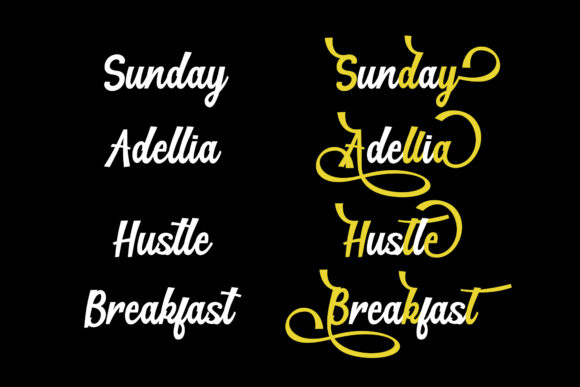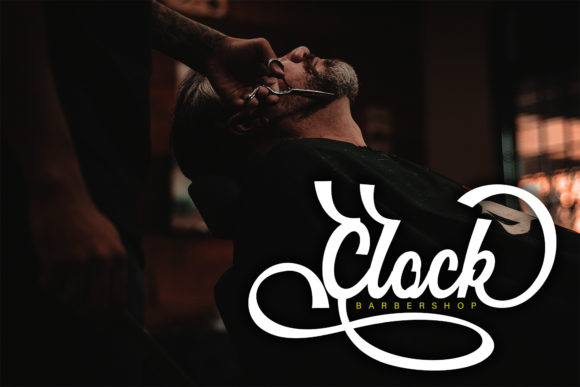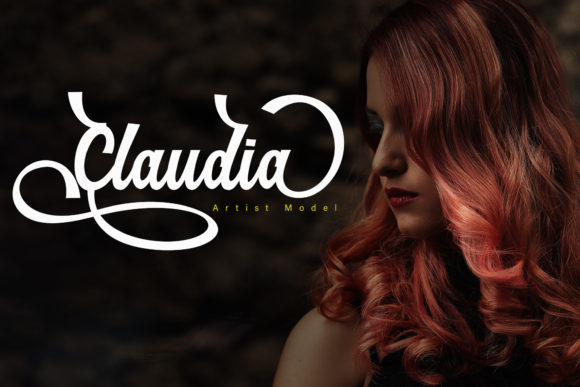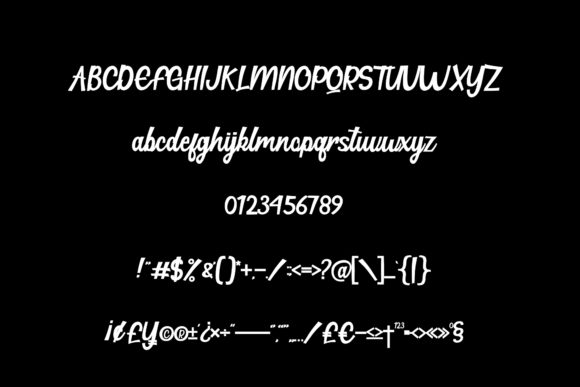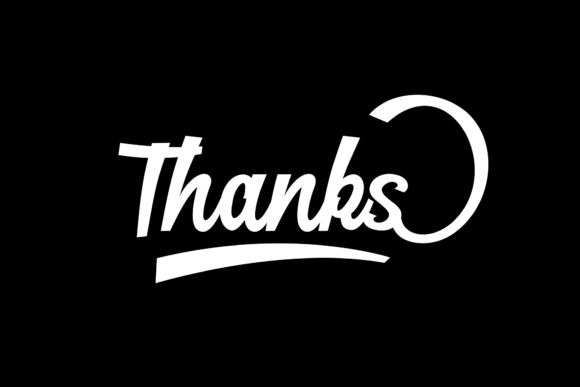
HomeScript FontsHillton Modern Script Font Script Fonts Hillton Modern Script Font FacebookXPinterestWhatsApp Hillton Modern Script Font Poster 2 Hillton Modern Script Font Poster 3 Hillton Modern Script Font Poster 4 Hillton Modern Script Font Poster 5 Hillton Modern Script Font Poster 6 Hillton Modern Script Font Poster 7 About Hillton Modern Script Font Hillton is a classy, elegant and super stylish modern script font perfectly suited for many projects! DOWNLOAD ON CREATIVE FABRICAThis font is sold and delivered by Creative Fabrica. Font Canyon may earn a commission if you buy through this link. People also explored Vintage Talkins Font Celistyne Font Rainy Day Font Nigatsu Font Anitha Font Akurasha Font Sevola Font Destination Font Birdy Home Font 378 0 TagsHillton Modern Script Font Previous articleDaphne Haney FontNext articleOystersvelt Font LEAVE A REPLY Cancel reply Comment: Please enter your comment! Name:* Please enter your name here Email:* You have entered an incorrect email address! Please enter your email address here Website: Save my name, email, and website in this browser for the next time I comment. Personal Use Free Waverly Date Personal Use Free Read more about this font Luxima Personal Use Free Read more about this font Bruttney Personal Use Free Read more about this font Baveuse Personal Use Free Read more about this font BLOG Top 7 Google Fonts Alternatives for Faster and Privacy-Friendly Web Design (2025) Top 7 Google Fonts Alternatives for Faster and Privacy-Friendly Web Design (2025) When it comes to web typography, Google Fonts has long been the go-to... Free vs Paid Fonts: Why Investing in Premium Fonts Is Worth It Best Fonts for T-Shirt Design – Top 2025 Picks Modern Sans-Serif Fonts That Brands Love in 2025